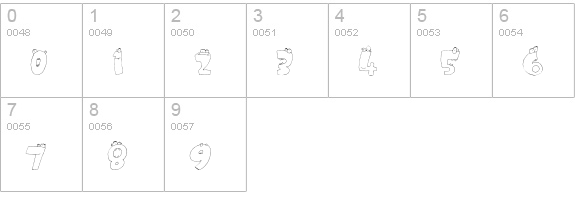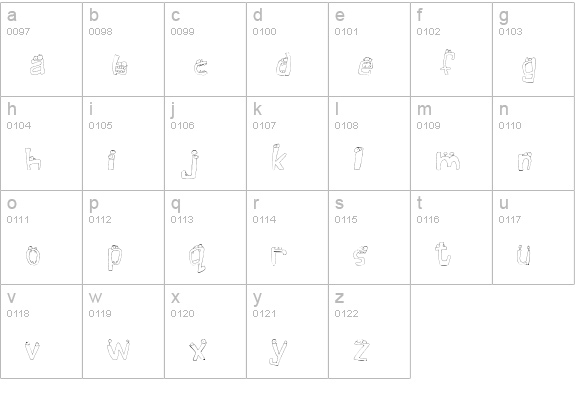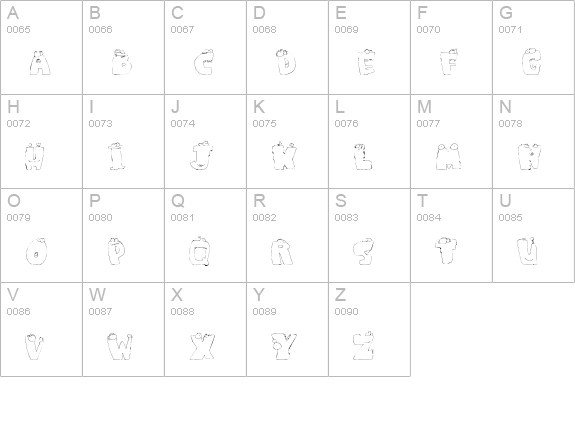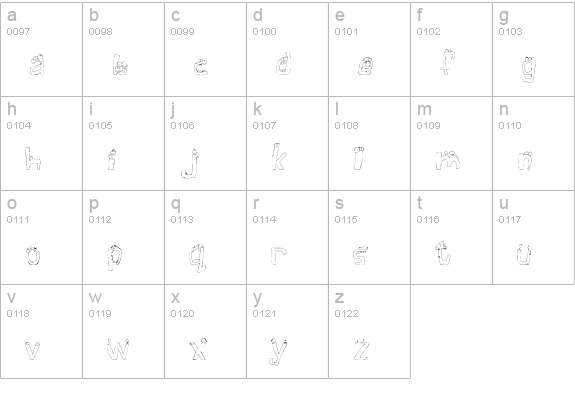
CK Monsters Font Details
The CK Monsters font is a playful and quirky typeface that is perfect for adding a touch of whimsy to your designs. With its unique characters and charming style, this font is sure to catch the eye of anyone who sees it. Whether you're creating a poster, invitation, or logo, CK Monsters will bring a fun and lighthearted feel to your project. The best part about the CK Monsters font is that it is completely free to download at FontsMarket.com. That's right, you can add this delightful font to your collection without spending a dime. So why wait? Head over to FontsMarket.com now and start using the CK Monsters font in your designs today!